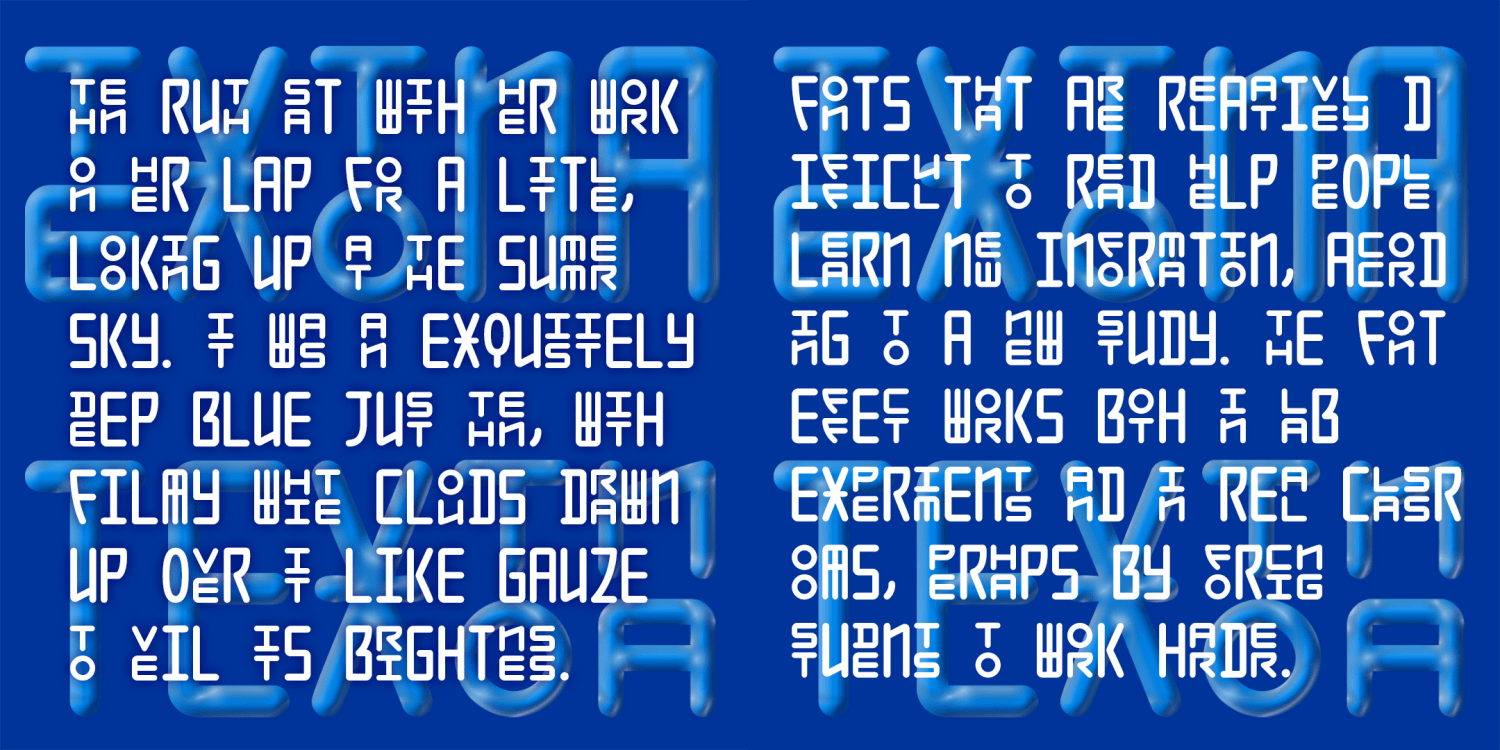
Textona
TEXTONA has a unique mix of large and small, stacking letters in a sleek geometric style. Using the Discretionary Ligatures feature of Opentype, composed pairs of stacking letters are automatically substituted, creating a rich and engaging texture as in the examples. Full details for using this unique pair of fonts are given in a separate file. An earlier version of this font was released as Seoul. Hangul, the fascinating and beautiful Korean alphabet with a most unique texture on the page, was one of my inspirations.